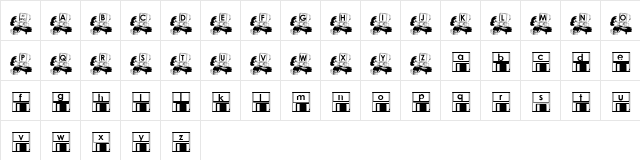
PuterBoy _KG Regular
Design Context for PuterBoy _KG Typeface
PuterBoy _KG is a composed and adaptable typeface that performs quietly and consistently across a wide range of design contexts.